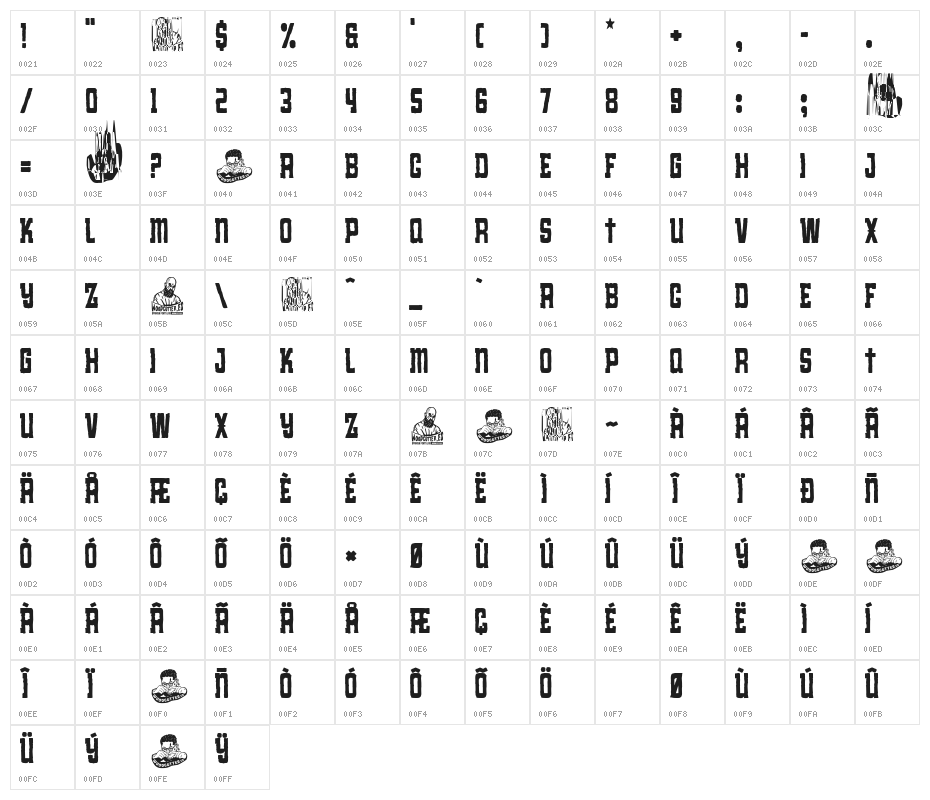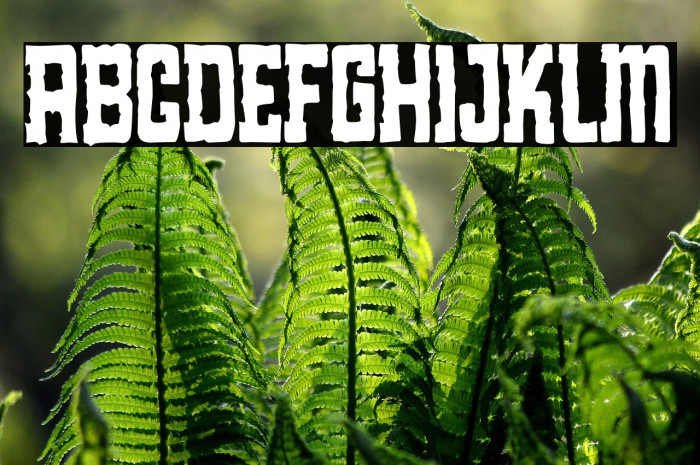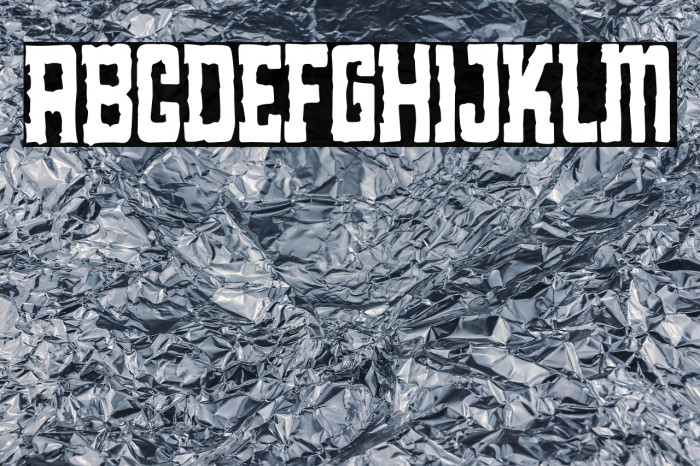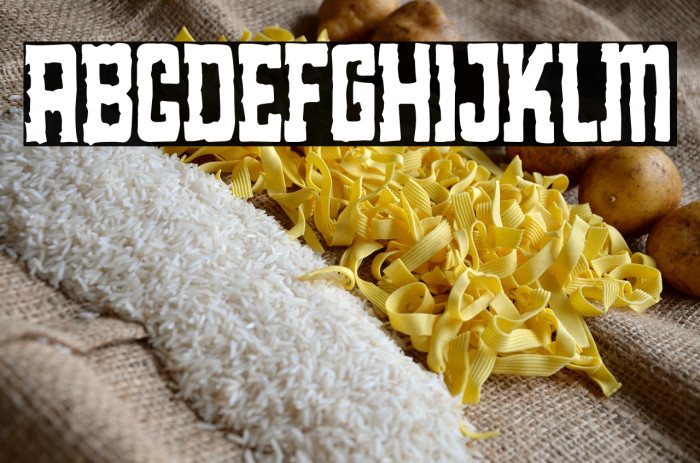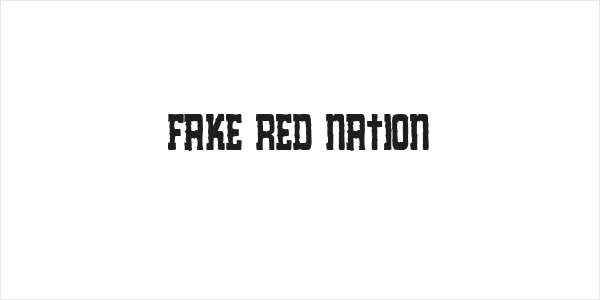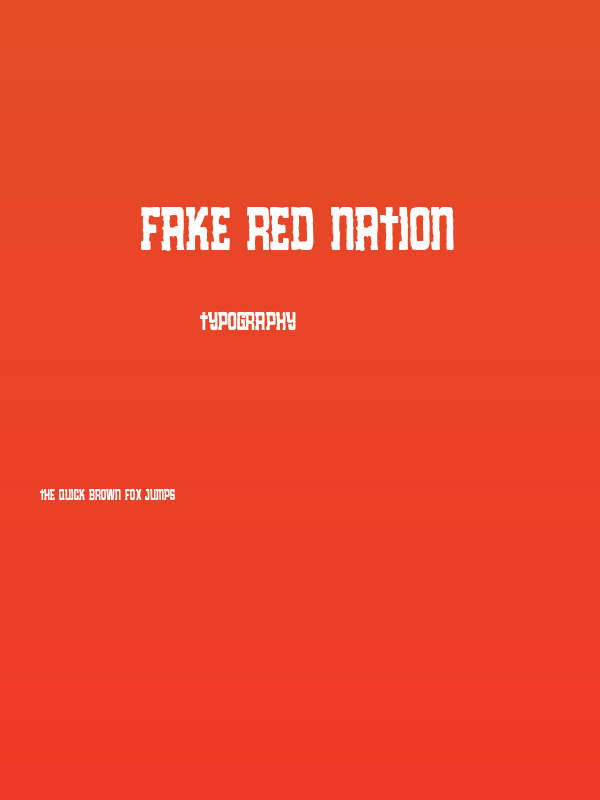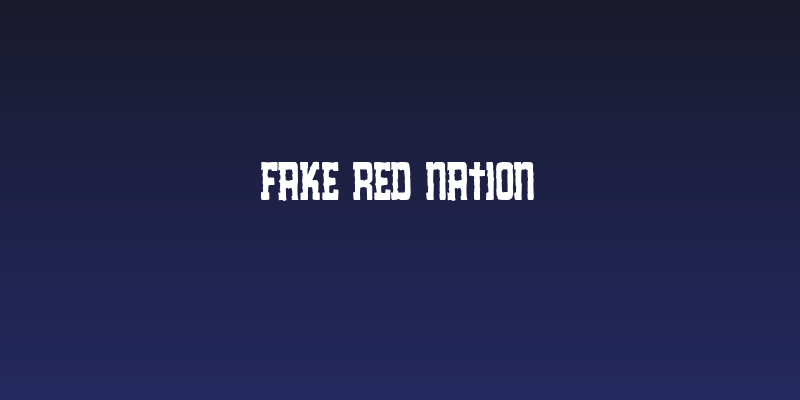
Fake Red Nation Font
Fake Red Nation Description
This font features a rugged, distressed look with uneven edges and a bold presence. The characters are blocky and substantial, giving off a strong, impactful appearance. The uppercase and lowercase letters maintain a consistent style, with a slightly rough texture that adds to its rustic charm. The numbers and special characters follow the same design, ensuring a cohesive look across all glyphs. This font is ideal for projects that require a bold and eye-catching typeface with a vintage or industrial feel.
| Proposed Projects | Ideal for posters, logos, branding, and any design requiring a strong, vintage aesthetic. |